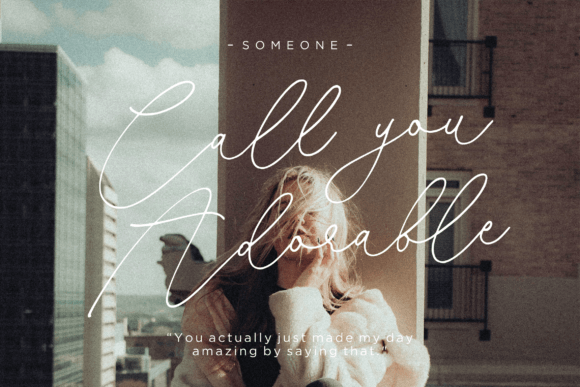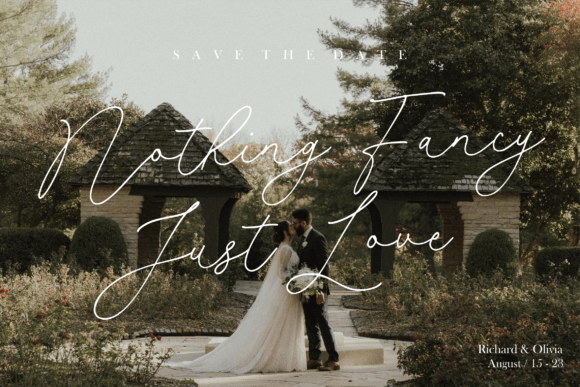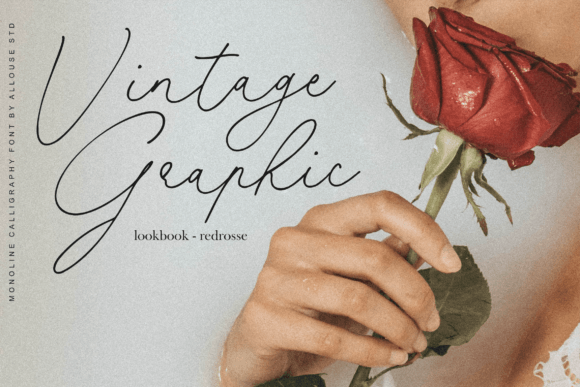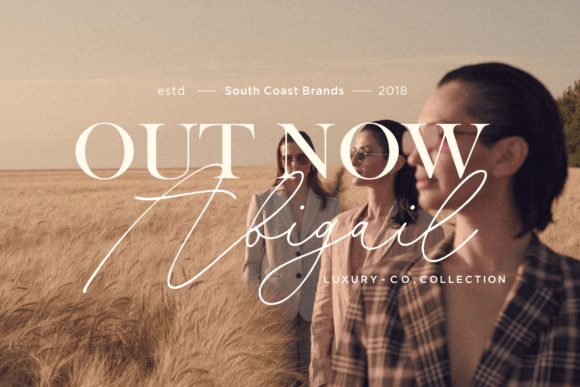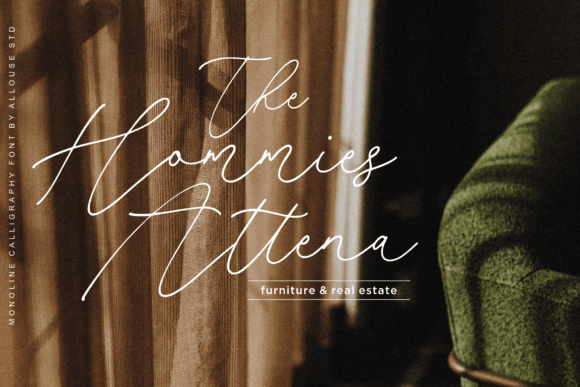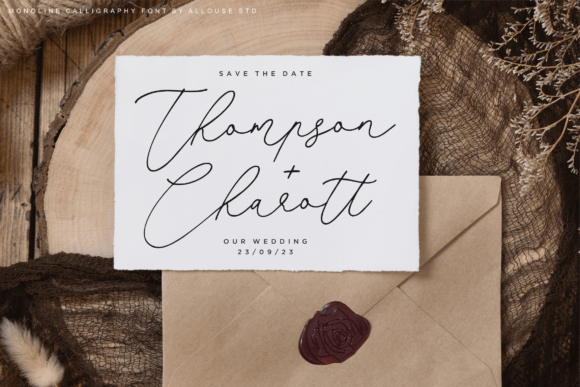
Introduction to Miserable Emillia Font
Have you ever stared blankly at your computer screen, trying to find the perfect font to bring your creative project to life? You’ve searched high and low, scrolled through countless options, and yet, nothing seems to fit the bill. This is where the Miserable Emillia Font comes in – a game-changing design resource that’s sure to elevate your work and leave a lasting impression.
With its dazzling script and intricate details, this high-quality font is the perfect addition to any designer’s library. Whether you’re working on a free download or a paid project, Miserable Emillia Font has the potential to take your design to the next level. Plus, its transparent background makes it easy to layer and customize, giving you complete creative control.
As a valuable resource for designers, Miserable Emillia Font is a must-have for anyone looking to add a touch of elegance and sophistication to their work. So why settle for a mediocre font when you can have a masterpiece? Read on to discover the beauty and versatility of the Miserable Emillia Font.
Key Features of Miserable Emillia Font
- Perfect for use in logos, branding materials, packaging design, and other creative projects that require a touch of sophistication and elegance.
Honest Review: Miserable Emillia Font
As a designer, I’m always on the lookout for high-quality fonts to enhance my creative projects. Recently, I stumbled upon the Miserable Emillia Font, and I’m here to share my honest review.
Here are the things that work well: ✨ The Miserable Emillia Font has a beautiful, unique design that adds a touch of elegance to any project. The font is also highly versatile, making it suitable for a wide range of creative projects, from posters to branding materials. Additionally, the font is available for free download, which is a major plus in my book.
- High-quality design that adds a touch of elegance
- Highly versatile and suitable for various creative projects
However, there are a few limitations to keep in mind: ⚠️ The Miserable Emillia Font doesn’t have a transparent background, which can be a problem if you’re working on a project that requires a background image. Additionally, the font may not be suitable for projects that require a lot of fine details, as it can appear slightly pixelated at larger sizes.
Overall, I’d say the Miserable Emillia Font is a great design resource for designers who want to add a unique touch to their projects. While it may have some limitations, its high quality and versatility make it a valuable addition to any design library.
Tips for Getting the Most Out of Miserable Emillia Font
Experiment with different font sizes, styles, and colors to create a unique design. Use the font’s transparent background feature to create a subtle and elegant look. Combine the Miserable Emillia Font with other design elements, such as images and shapes, to create a visually appealing design.
The Miserable Emillia Font is suitable for various creative projects, including branding, marketing materials, and digital design. Its high-quality design and transparent background feature make it an ideal choice for designers looking for a versatile and elegant font.